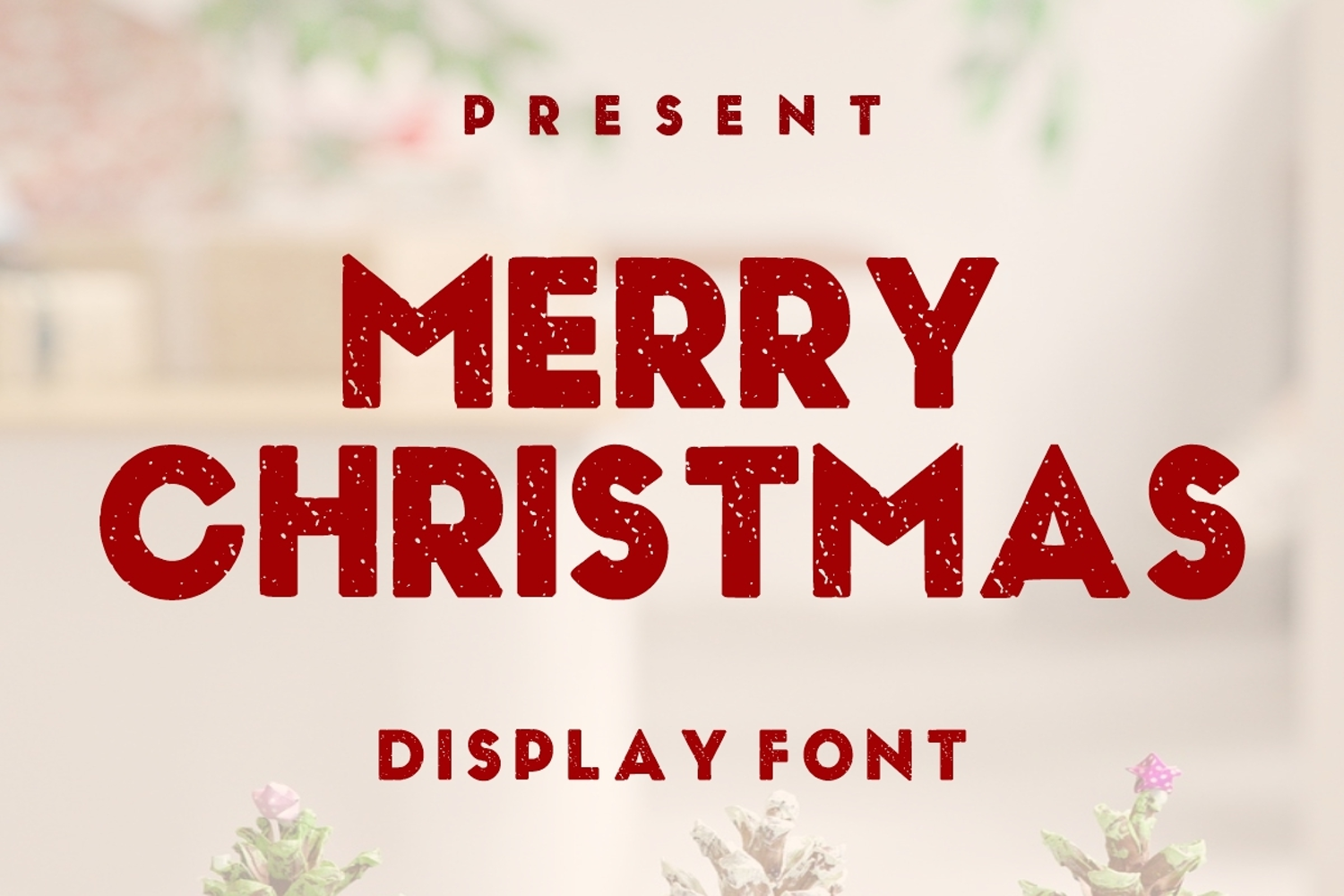
Merry Christmas Font
Merry Christmas
Merry Christmas is a bold, distressed display font that captures a festive, hand-stamped aesthetic, perfect for adding a rustic and authentic feel to holiday projects.
This strong, all-caps typeface is defined by its chunky, vintage-inspired letterforms and subtly textured edges, mimicking the look of traditional woodblock or rubber stamp printing.
The Merry Christmas font immediately conveys a cozy, handmade warmth, making it highly suitable for seasonal greetings.
Use the Merry Christmas display font for holiday posters, custom gift tags, winter apparel design, and any creative project that needs a bold, rustic, and unmistakably festive visual statement. The strong, textured character of the Merry Christmas typeface ensures your design is both eye-catching and uniquely charming.